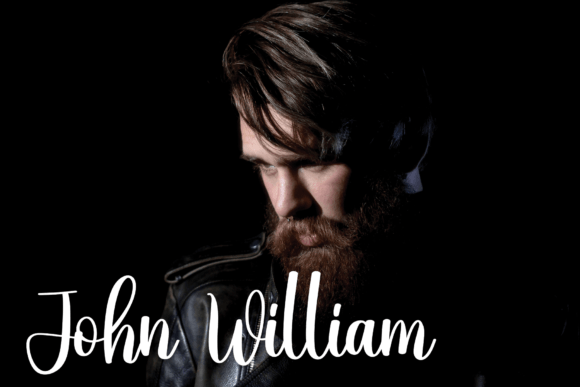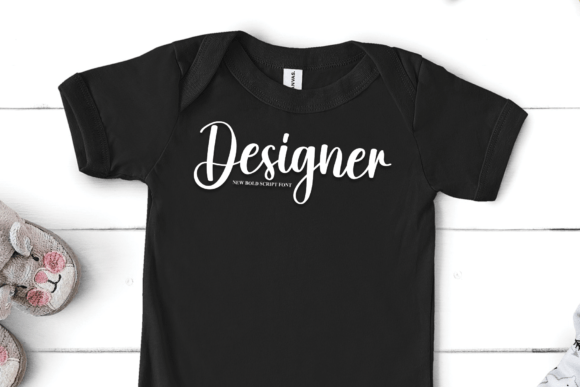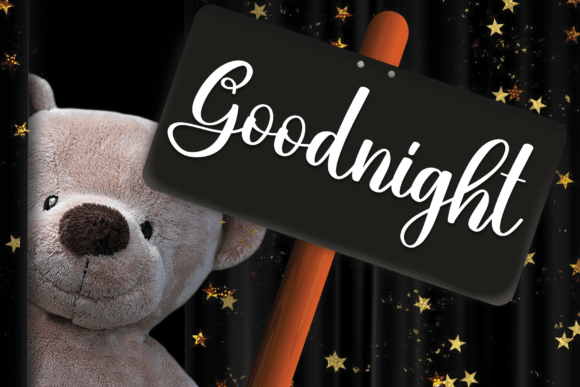
Introduction to Love December Font
As you sit at your desk, surrounded by scraps of paper and half-finished designs, you suddenly feel the spark of creativity ignite within you. Your heart beats faster, and your mind starts racing with ideas. This is the moment when the perfect font can make all the difference. For designers, finding the right typography can be the key to elevating their creative project from good to great.
That’s where the Love December Font comes in – a stunning, high-quality font that’s sure to captivate your audience. With its elegant, handwritten style, it’s the perfect design resource for anyone looking to add a touch of sophistication to their work. And the best part? This beautiful font is available for a free download, complete with a transparent background that makes it easy to use in any project.
Key Features of Love December Font
- High-quality design resource for various creative projects, including holiday-themed graphics, cards, and posters.
- Transparent background, making it ideal for overlaying on images or other design elements.
- Beautiful, elegant script font perfect for adding a touch of romance and festivity to your designs.
- Unique, handwritten style with subtle flourishes and swashes, adding a personal touch to your creative projects.
Honest Review: Love December Font
I recently stumbled upon the Love December Font, and I must say it’s a great addition to any designer’s toolkit. This free download is perfect for anyone looking to add a touch of winter wonder to their creative project.
- ✨ High-quality font with a clear, transparent background, making it easy to overlay on images or backgrounds.
- ✨ Stylish and modern design that’s perfect for the holiday season.
- ⚠️ Limited font sizes and styles available, which may not be suitable for all design projects.
- ⚠️ May not be ideal for designs that require a bold, eye-catching font.
Overall, I’m impressed with the Love December Font. It’s a great design resource for anyone looking to add a touch of winter magic to their creative project. While it may not be perfect for every design, it’s definitely worth considering for your next holiday-themed project.
Tips for Getting the Most Out of Love December Font
For the best results, use the Love December Font in conjunction with other high-quality design resources, such as images and graphics. You can also experiment with different font sizes and styles to create a unique look for your design. Additionally, make sure to check the transparency of the font background to ensure it works well with your design.
The Love December Font is perfect for creative projects, such as holiday cards, invitations, and social media graphics. It’s also great for design projects that require a high-quality, free download font with a transparent background.